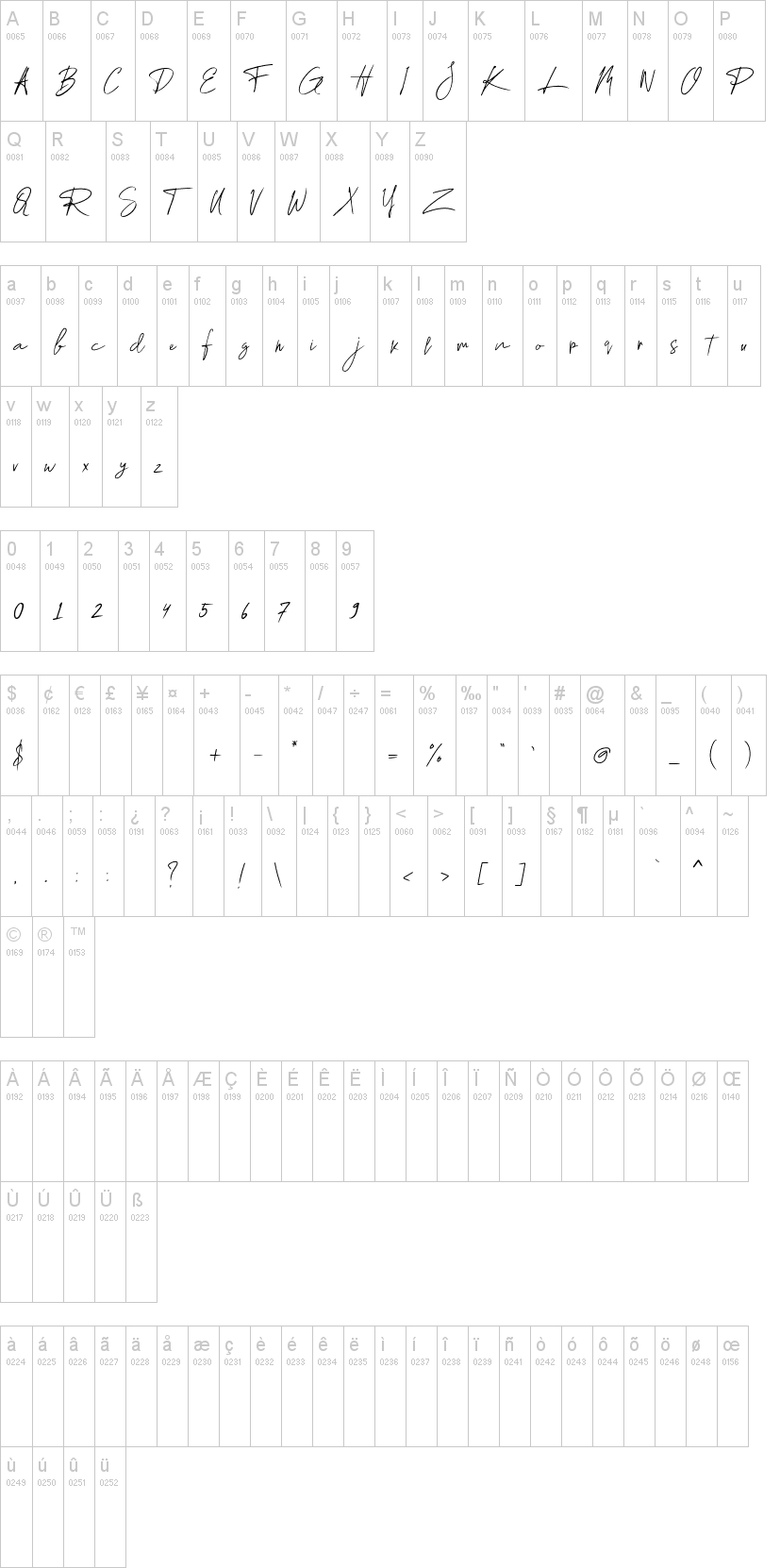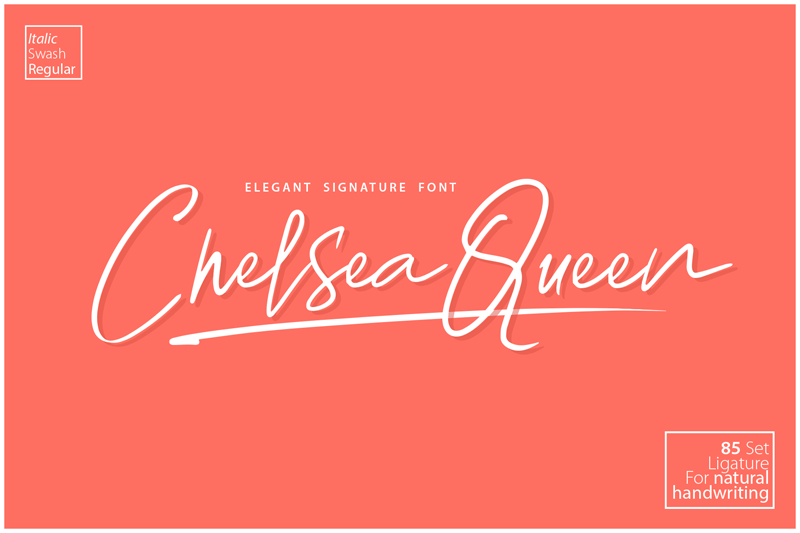
Chelsea Queen was built with OpenType features and includes numbers, punctuation, alternates, ligatures, swash and icon sign and it also supports other languages.
Chelsea Queen is a very unique font, because there are 85 sets of ligatures that will make writing natural and elegant. This is very suitable for use Logo, Wedding, Fashion, Poster, Menu, Invitation and there is still much that can be done with this font.